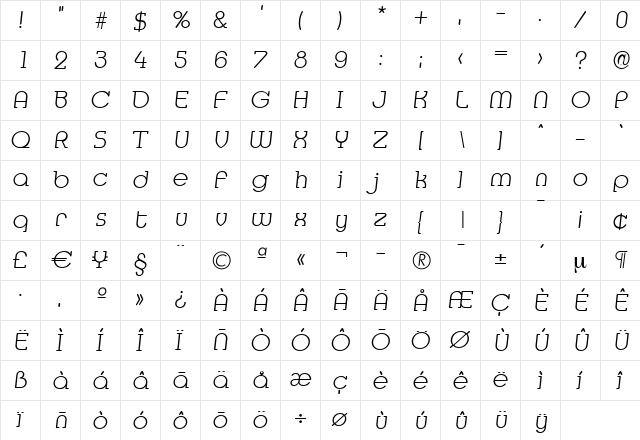
DesireeBecker-ExtraLight Italic
Design Context for DesireeBecker-ExtraLight Typeface
DesireeBecker-ExtraLight offers clean, dependable letterforms without strong stylistic allegiance, making it a practical choice for designers who need flexibility. Its italic angle brings a sense of urgency and motion to the letterforms. The delicate stroke weight brings airiness and refinement to layouts.